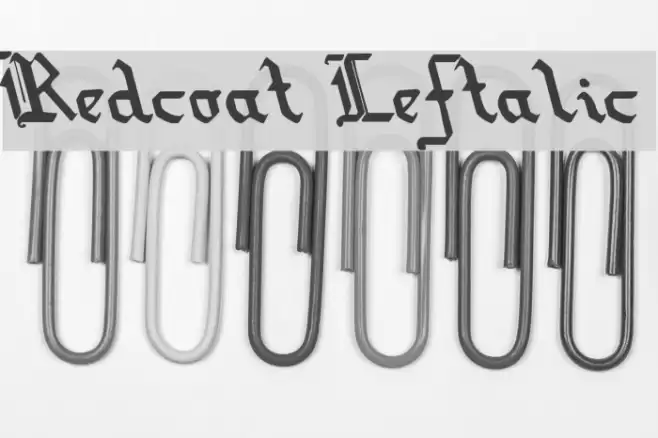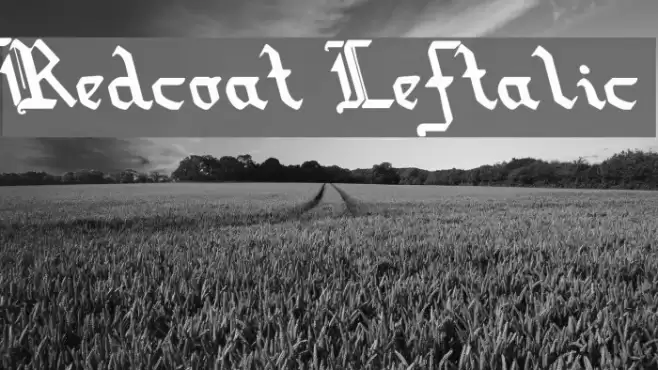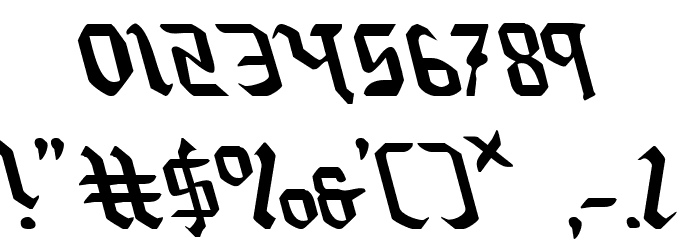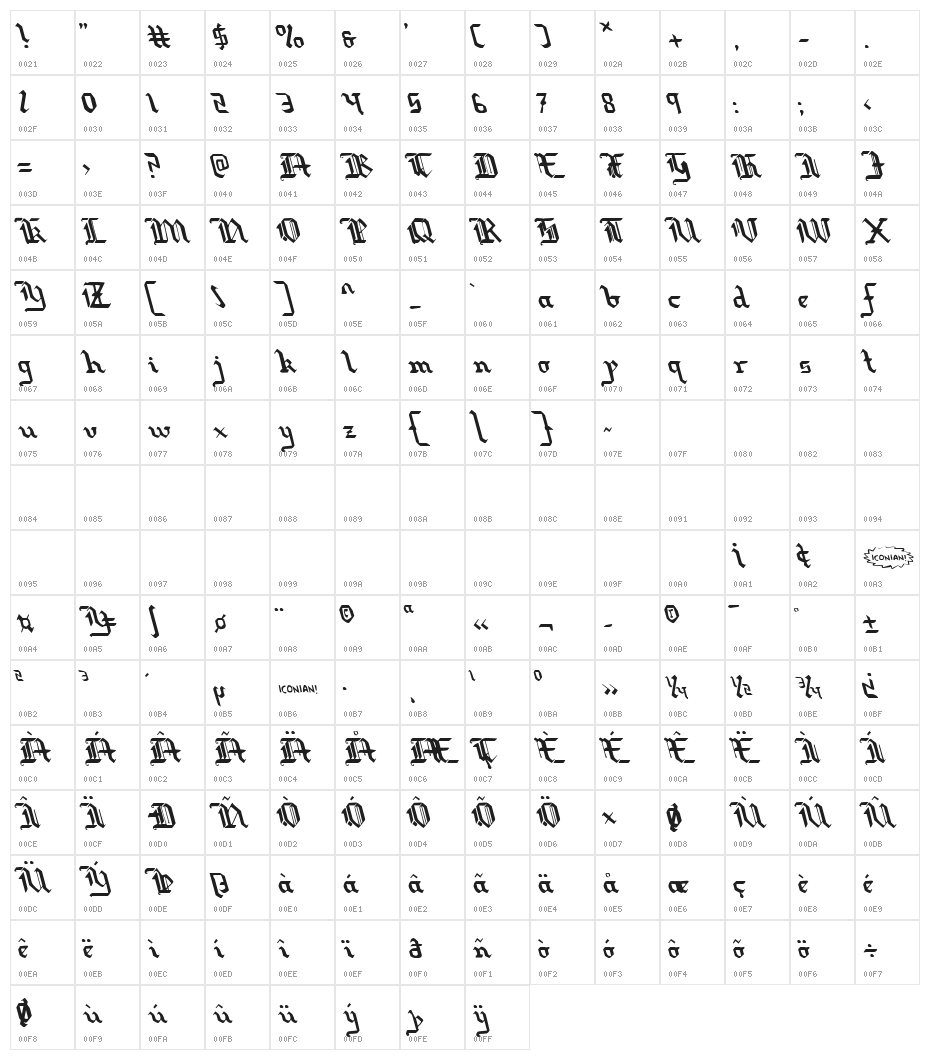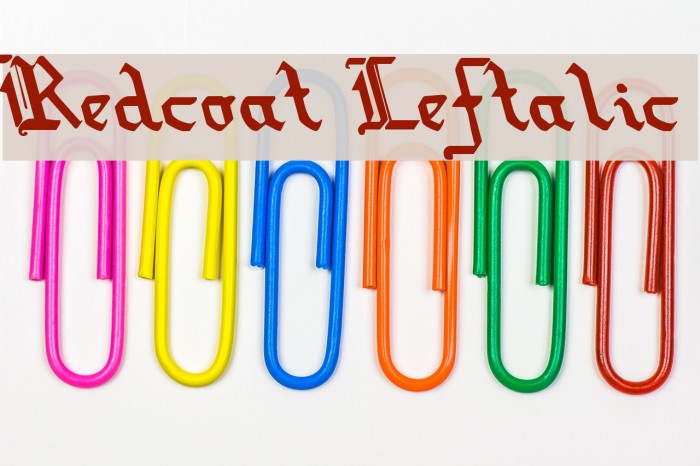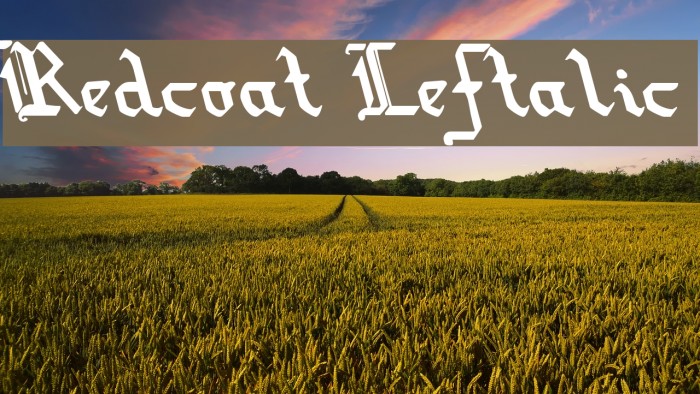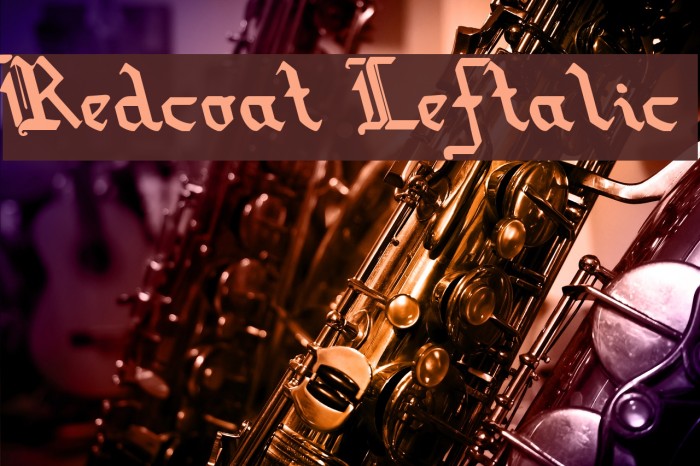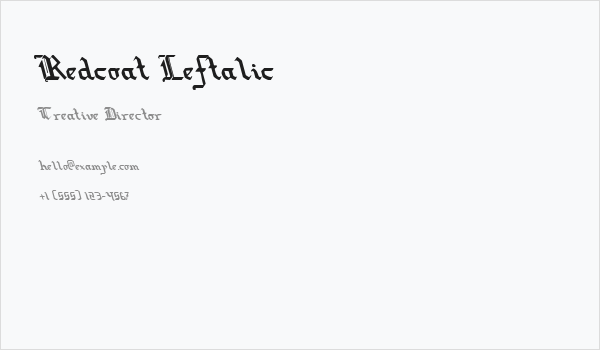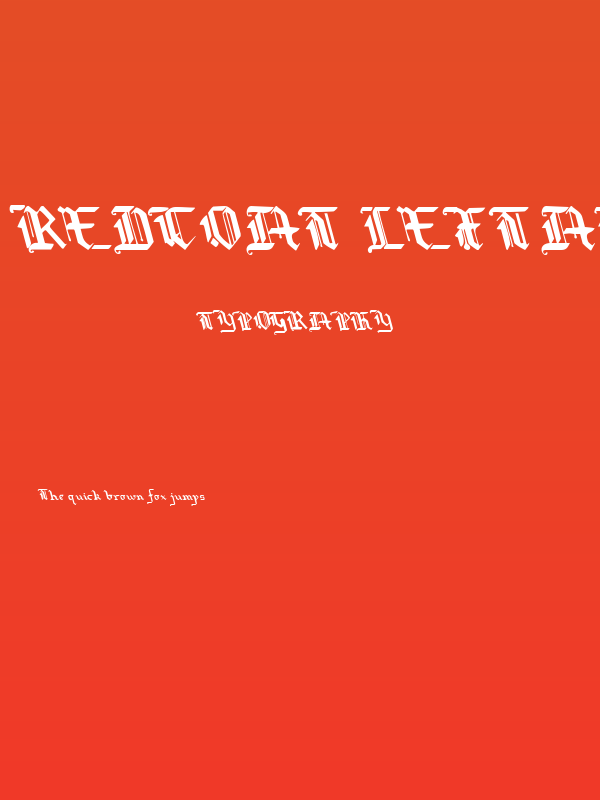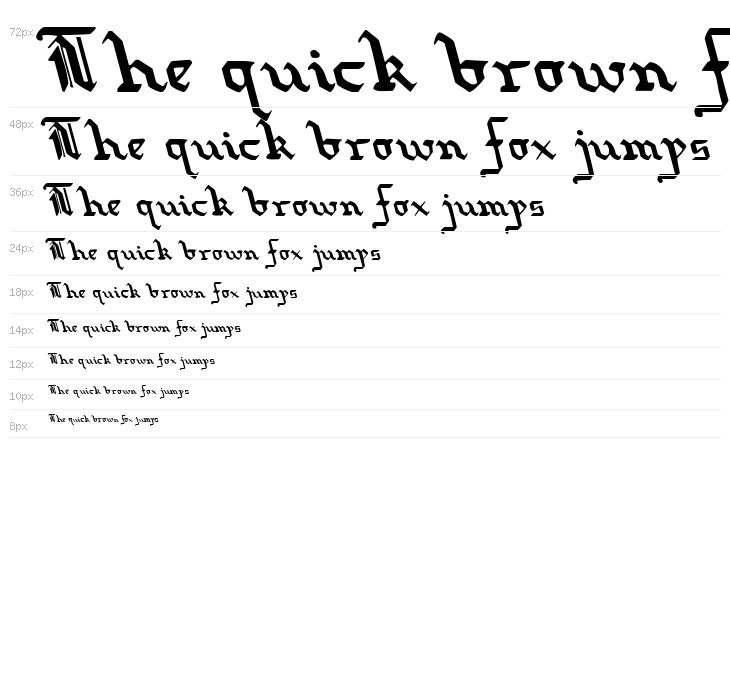
Redcoat Leftalic Font
Redcoat Leftalic Description
This font features a bold and striking design with a distinct blackletter style. The characters are intricately crafted with sharp angles and dramatic strokes, giving it a historic and authoritative appearance. The uppercase letters are particularly ornate, with elaborate serifs and flourishes that enhance its decorative nature. The lowercase letters maintain a consistent style, offering a cohesive look throughout. Numbers and special characters are designed to match the overall aesthetic, ensuring uniformity across all text. The font's unique style makes it ideal for projects that require a touch of elegance and tradition.
A bold blackletter font with ornate, sharp angles and dramatic strokes from Gothic fonts.
- Proposed Projects: Ideal for historical documents, certificates, branding for luxury products, and decorative headings.
- Overall Style: Vintage